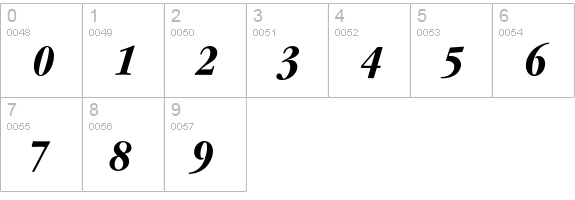
Garamond* Condensed Bold Italic Font Details
Garamond* Condensed Bold Italic is a strong, high-contrast, condensed-width, italic variant in the Garamond* typeface family \xE2\x80\x94 well suited to headlines, attention-grabbing titles, and strong calls-to-action.
Garamond Condensed Bold Italic font exudes elegance and sophistication with its striking combination of condensed design and bold italic style. This font brings a sense of modernity and flair to any design project, making it perfect for titles, headings, and other attention-grabbing text. With its sleek and streamlined appearance, Garamond Condensed Bold Italic font is sure to make a bold statement while maintaining a sense of refinement and class. The distinctive italicized letters add a touch of drama and flair, making this font perfect for projects that require a touch of boldness and creativity. Best of all, Garamond Condensed Bold Italic font is available for free download at FontsMarket.com, making it easily accessible for designers and creators looking to elevate their projects with this stylish and versatile typeface. Don't miss out on the opportunity to add this eye-catching font to your collection and take your designs to the next level.